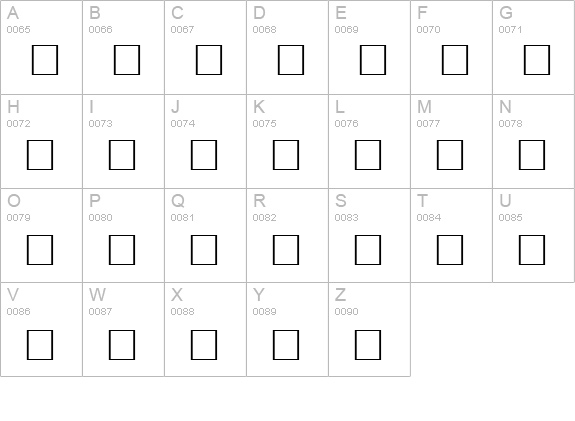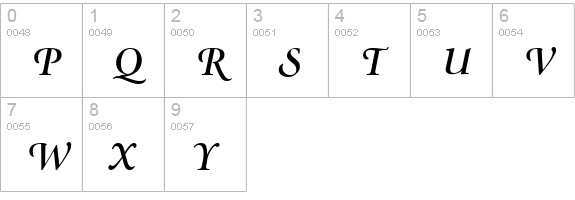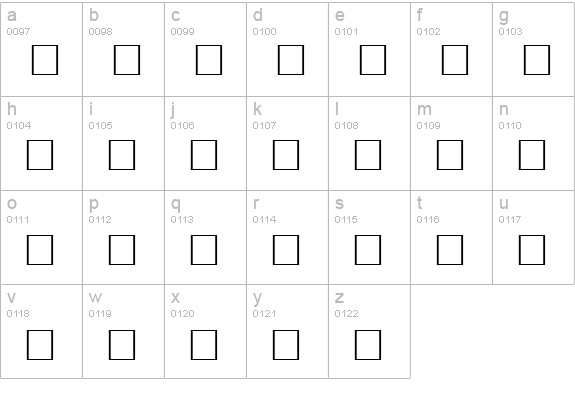
MinioSwaSemIta Font Details
MinioSwaSemIta is a stylish and versatile font that exudes elegance and sophistication. Its unique design features sleek lines and sharp angles, making it perfect for a wide range of projects. Whether you're working on a logo, branding materials, or printed materials, MinioSwaSemIta will add a touch of class to your designs. What sets MinioSwaSemIta apart is that it is available for free download at FontsMarket.com, making it accessible to anyone looking to elevate their typography game without breaking the bank. The font's clean and modern aesthetic makes it suitable for both professional and personal use, allowing you to create stunning visuals with ease. Don't miss out on the opportunity to enhance your projects with the sophistication of MinioSwaSemIta. Download this exquisite font today and elevate your designs to new heights.